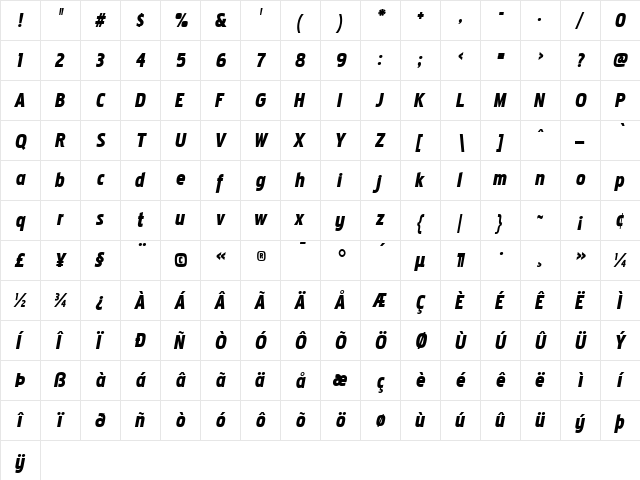
Pakenham Blk Italic
Design Context for Pakenham Blk Typeface
Pakenham Blk takes a measured approach to typography — its balanced proportions and neutral character make it a reliable workhorse for both digital and print work. The dynamic lean of this cut emphasises speed and emphasis in any layout.
Pro Tip: Try Pakenham Blk for annotation and caption copy alongside an upright companion — the contrast in angle creates a dynamic but ordered typographic system.